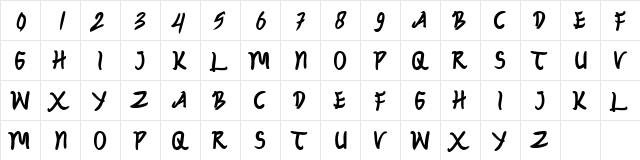
ZOJIHUN Regular
| Designer | Jihan & Ahmad Muslimin |
Design Context for ZOJIHUN Typeface
ZOJIHUN is a composed and adaptable typeface that performs quietly and consistently across a wide range of design contexts.